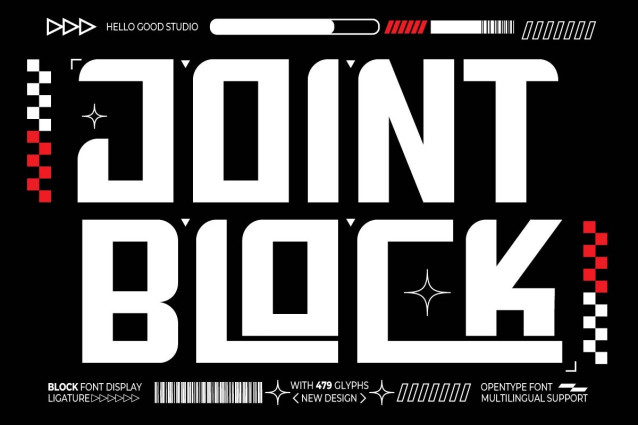
Joint Block Font
Joint Block Font is perfect for your upcoming projects such as logo branding, editorial design, e-sport design, 80s retro design, game/gaming industry, sports racing, supercar brand, e-sport branding, music poster, website design, modern advertising design, poster quote, book/cover title, special events, and any more.